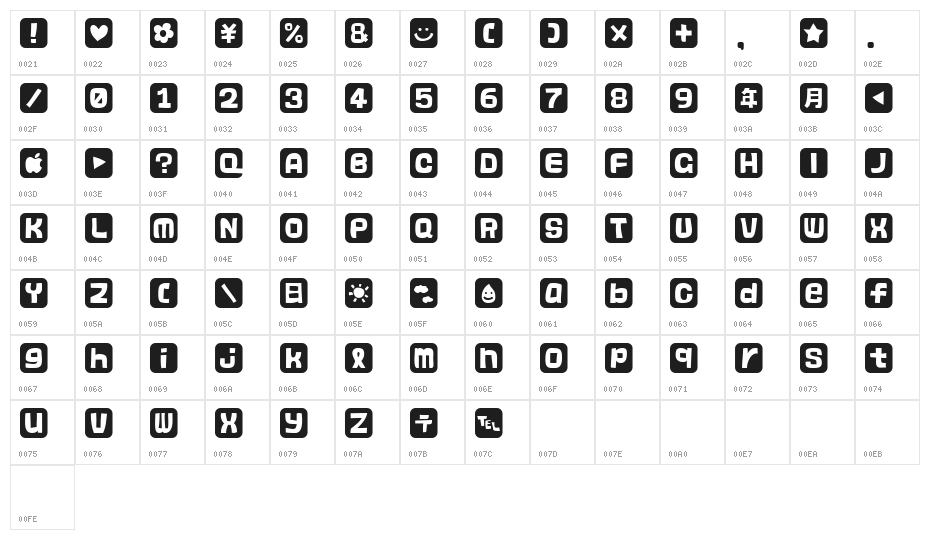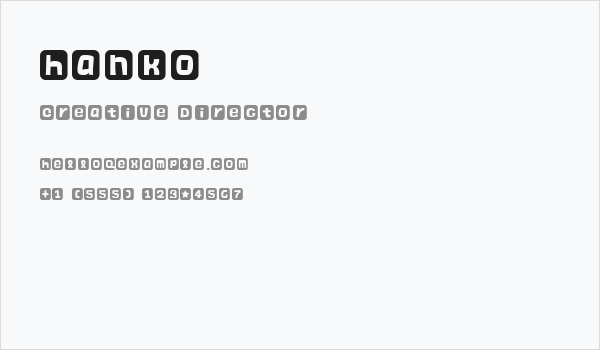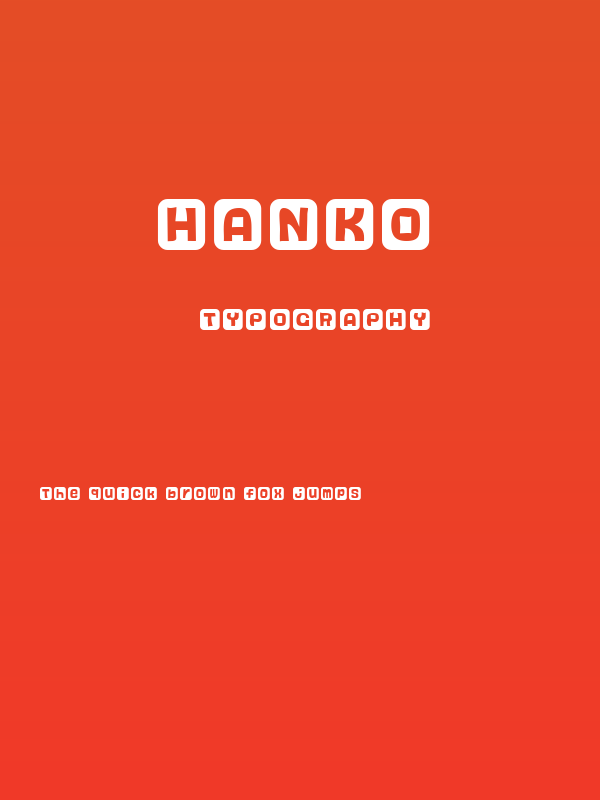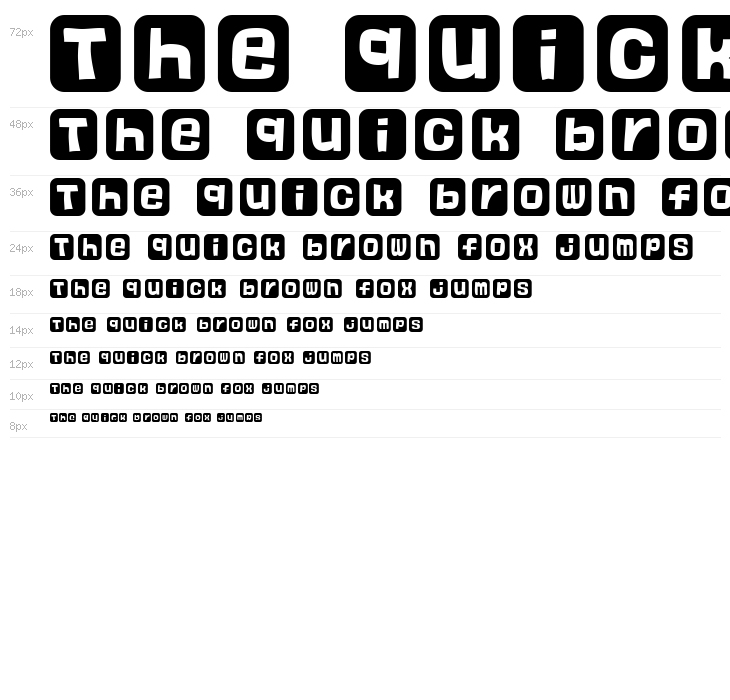
hanko Font
hanko Description
This font features bold, rounded characters enclosed within solid black squares, creating a playful and modern appearance. Each letter and number is centered within its square, providing a uniform and structured look. The characters have a consistent thickness, contributing to a cohesive design. The font includes both uppercase and lowercase letters, numbers, and a variety of special characters, making it versatile for different uses. Its unique style is eye-catching and suitable for projects that require a fun and engaging visual impact.
Proposed ProjectsIdeal for children's books, playful branding, posters, and digital media that require a fun and engaging style.